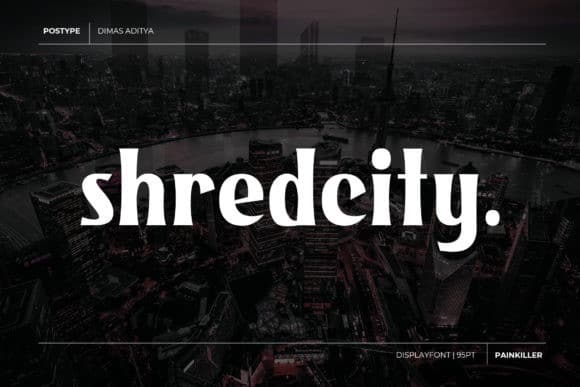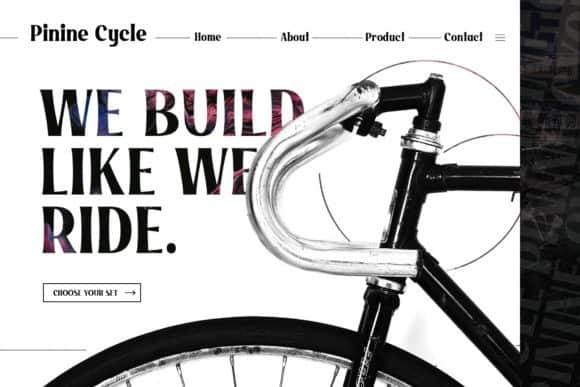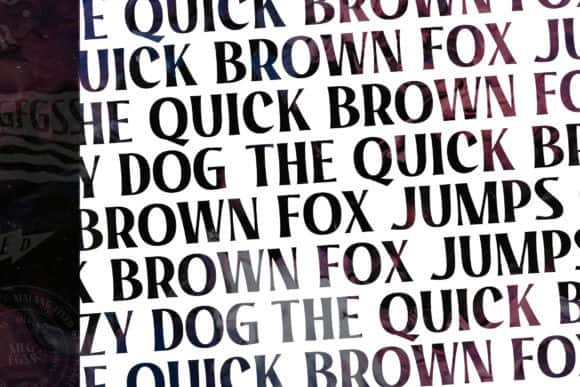
Painkiller Display Font
Painkiller Display Font is a beautiful, elegant, clean and unique typeface. This font is a unique and bold display font created by Postype . Suitable for design, element design, wedding, event, t-shirt, logo, badges, sticker, and awesome work, etc. Thick lettered and powerful, this font will manage to lift up each of your creative ideas!